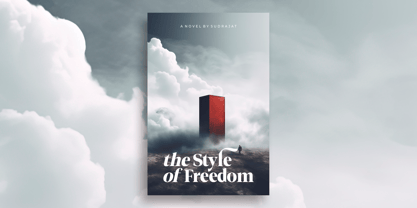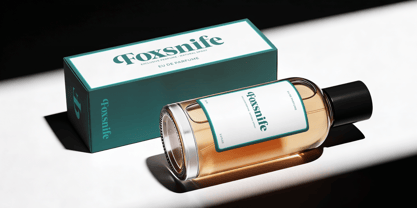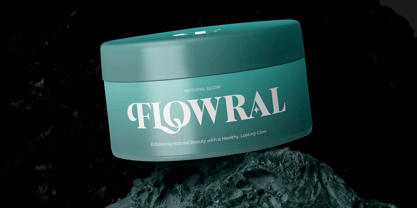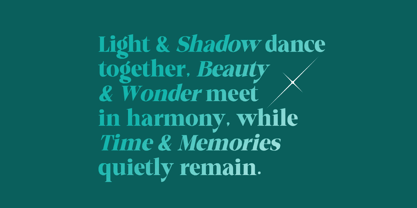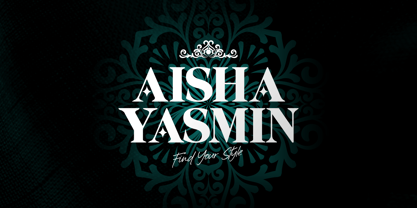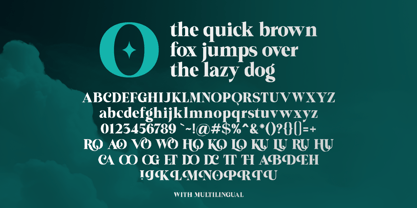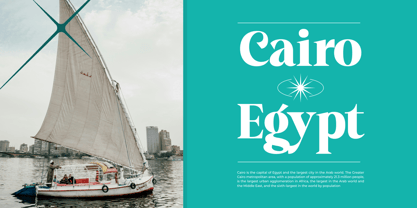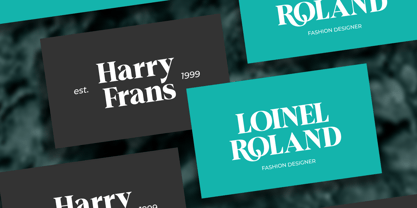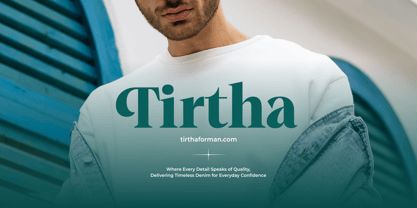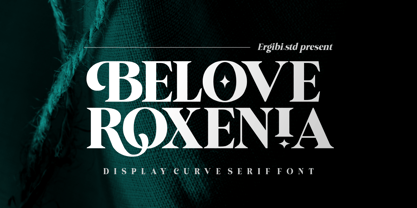
Belove Roxenia
The Belove Roxenia Font Family was designed by Riyadh Rahman and published by Ergibi Studio. Belove Roxenia contains 2 styles and family package options. More about this family
Belove Roxenia is a sophisticated display serif font that blends timeless elegance with expressive curves. Designed with dramatic contrasts, graceful terminals, and distinctive decorative details, this typeface brings a sense of luxury and refinement to every project.
Its sculpted letterforms and stylish character make Belove Roxenia an excellent choice for branding, fashion editorials, cosmetic packaging, wedding stationery, magazine headlines, logo design, social media content, and premium product presentations. Whether used in large headlines or elegant brand identities, Belove Roxenia delivers a captivating visual presence that feels both modern and timeless.